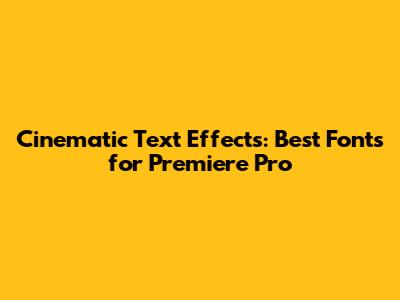
- Legibility: Ensure that the text is easy to read, even at smaller sizes or when displayed for a short duration.
- Style: Choose a font that matches the genre and mood of your video. A thriller might benefit from a bold, edgy font, while a romantic comedy might call for something softer and more elegant.
- Hierarchy: Use different font weights and sizes to create a visual hierarchy, guiding the viewer's eye to the most important information.
- Kerning and Tracking: Pay attention to the spacing between letters and words to ensure readability and visual appeal. Adjust kerning and tracking as needed to achieve a balanced and professional look.
- Bebas Neue: A popular sans-serif font known for its clean lines and tall, narrow characters. It's ideal for modern and minimalist designs.
- Raleway: Another excellent sans-serif option that offers a wide range of weights, making it suitable for various applications.
- Montserrat: A geometric sans-serif font that exudes a sense of sophistication and clarity. It works well for both headings and body text.
- Oswald: A classic sans-serif font with a slightly condensed design, perfect for headlines and titles.
- Lato: A versatile sans-serif font that strikes a balance between readability and visual appeal. It's a great choice for a wide range of projects.
- Playfair Display: A beautiful serif font with elegant curves and a touch of vintage charm. It's perfect for creating a sophisticated and refined look.
- Lora: A well-balanced serif font that's easy to read and visually pleasing. It's a great option for body text and longer passages.
- Roboto: A modern sans-serif typeface that is both clean and functional. It works well in a variety of digital environments and is highly legible, making it a solid choice for any video project.
- Motion Graphics Templates (MOGRTs): Utilize pre-designed templates to quickly add animated text effects to your videos. Customize the colors, fonts, and animations to match your brand and style.
- Text Animation: Animate your text using keyframes to create dynamic and engaging effects. Experiment with position, scale, rotation, and opacity to bring your text to life.
- Drop Shadows and Outlines: Add depth and dimension to your text by applying drop shadows and outlines. Adjust the color, size, and opacity of these effects to achieve the desired look.
- Glow Effects: Create a soft, ethereal glow around your text to make it stand out. Use glow effects sparingly to avoid overwhelming the viewer.
- Masking: Use masks to reveal or hide portions of your text, creating interesting visual effects. Combine masks with animation to add movement and dynamism.
- Tracking: Track the movement of objects in your video and attach your text to them. This technique can add a sense of realism and integration to your text elements.
- Classic Movie Titles: Use a serif font like Playfair Display or Lora, combined with a subtle drop shadow and a slow zoom animation, to emulate the timeless elegance of classic movie titles.
- Action Movie Titles: Opt for a bold sans-serif font like Bebas Neue or Oswald, with a fast-paced zoom or pan animation, to capture the energy and excitement of action movies.
- Sci-Fi Movie Titles: Experiment with futuristic fonts and neon colors, combined with glitch effects and animated masks, to create a high-tech and visually striking look.
- Documentary Titles: Choose a clean and modern sans-serif font like Montserrat or Lato, with a simple fade-in animation, to convey a sense of professionalism and credibility.
- Romantic Comedy Titles: Select a playful and whimsical font, combined with a bouncy animation and pastel colors, to evoke a lighthearted and cheerful mood.
- Keep it Simple: Avoid overcrowding the screen with too much text. Use concise and impactful language to convey your message effectively.
- Use Contrast: Ensure that your text stands out against the background by using contrasting colors. A dark text on a light background, or vice versa, will improve readability.
- Maintain Consistency: Use the same fonts and styles throughout your video to create a cohesive and professional look.
- Test on Different Devices: Preview your video on different screens and devices to ensure that the text is legible and visually appealing on all platforms.
- Get Feedback: Ask for feedback from friends, colleagues, or online communities to get a fresh perspective on your text design.
Creating captivating cinematic text effects in Premiere Pro involves selecting the perfect font that complements your video's aesthetic. The right font can elevate your title sequences, lower thirds, and end credits, adding a professional and polished touch to your projects. Let's dive into the world of cinematic text, exploring some of the best fonts and techniques to achieve stunning visual effects.
Choosing the Right Font
Selecting the right font is crucial for creating a cinematic feel. The font should not only be visually appealing but also legible and appropriate for the tone and style of your video. Here are some key considerations: